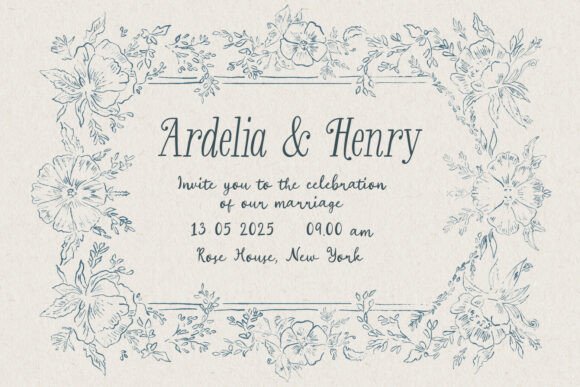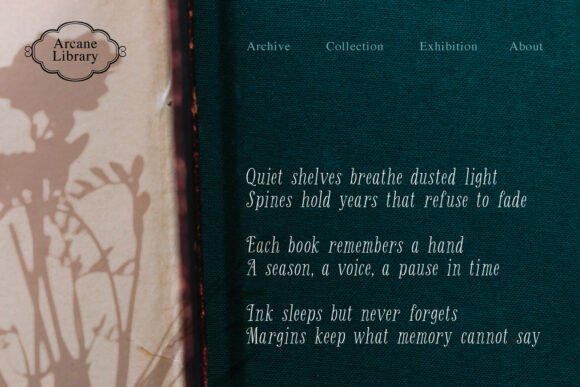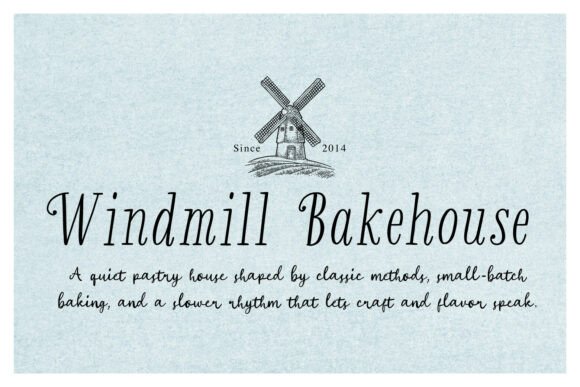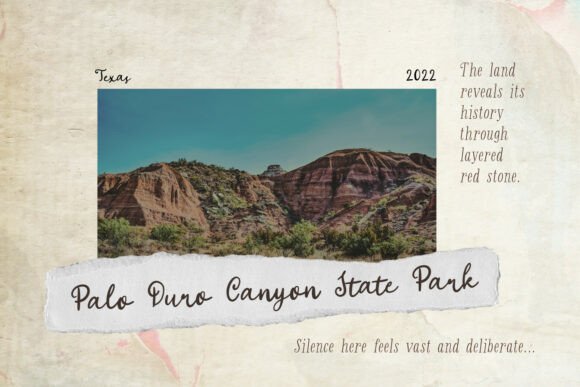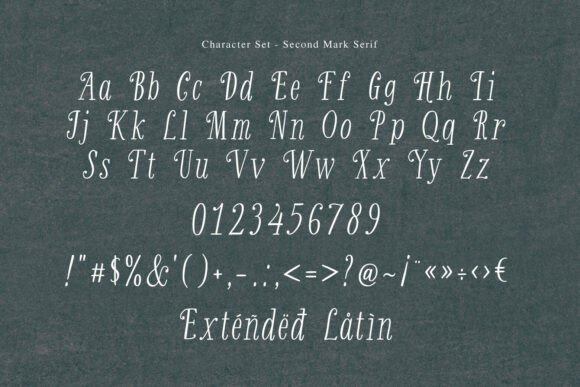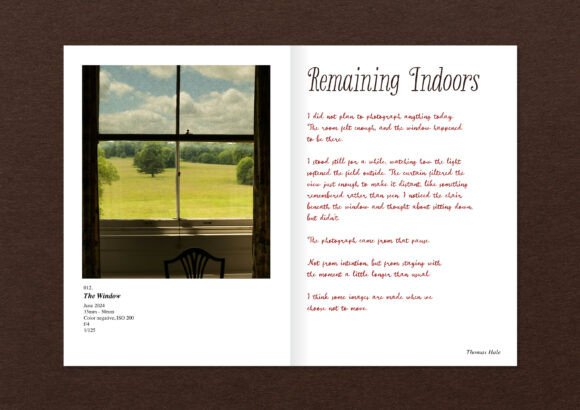
Introduction to Second Mark Duo Font
Elevate your design game with the Second Mark font, an expertly curated “font duo” that pairs a sophisticated, organic serif with a matching handwritten script.
The Second Mark font system is designed to take the guesswork out of font pairing, providing a “warm editorial feel” right out of the box Use the Second Mark typeface (the serif version) for authoritative yet gentle headlines, and use the script counterpart for accent text, signatures, or personal notes.